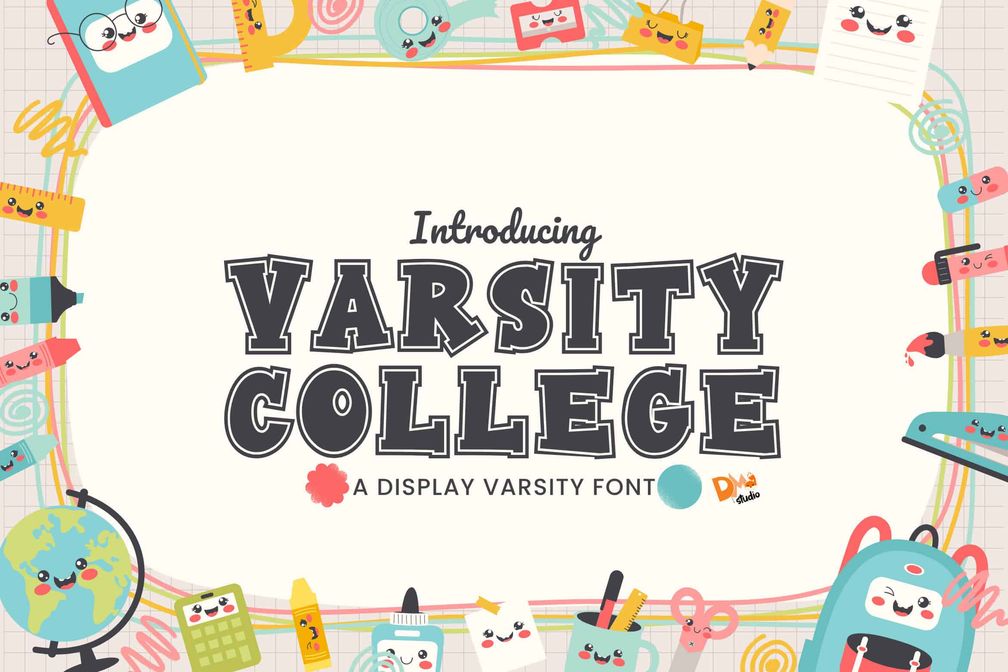
Varsity College
Varsity College – A Bold & Classic Collegiate Font
Varsity College is a strong and stylish display font inspired by classic collegiate lettering. Perfect for sports designs, school branding, team merchandise, posters, apparel, and bold typography projects, this font captures the essence of traditional varsity aesthetics with a modern touch.
• Classic Collegiate Style: Inspired by traditional varsity and athletic lettering.
• Perfect for Sports & School Themes: Ideal for team logos, banners, apparel, and branding.
• Versatile Display Font: Works well for bold headlines, posters, and digital designs.
• Multilingual Support: Includes extended Latin characters for multiple languages.
• Complete Character Set: Includes uppercase, lowercase, numbers, punctuation, and symbols.